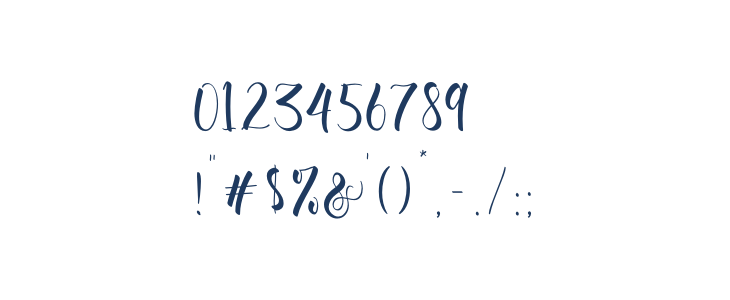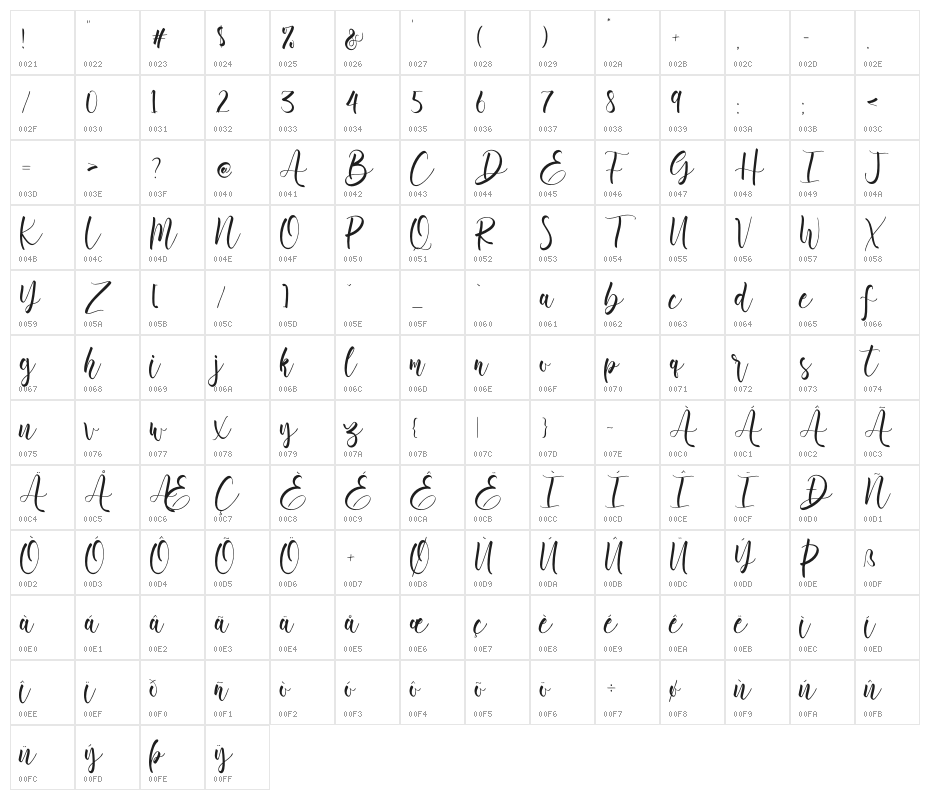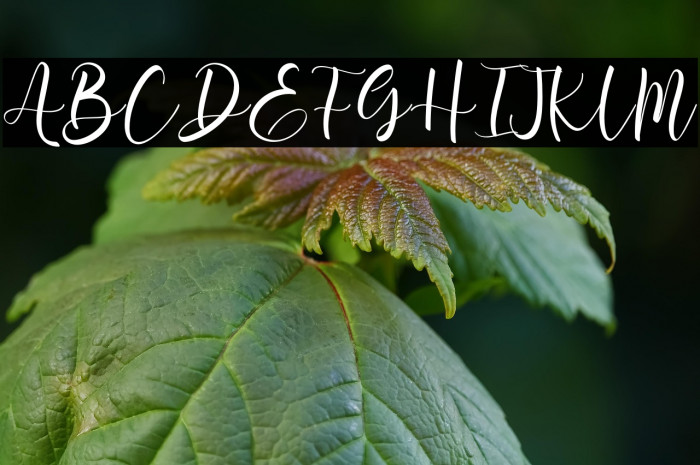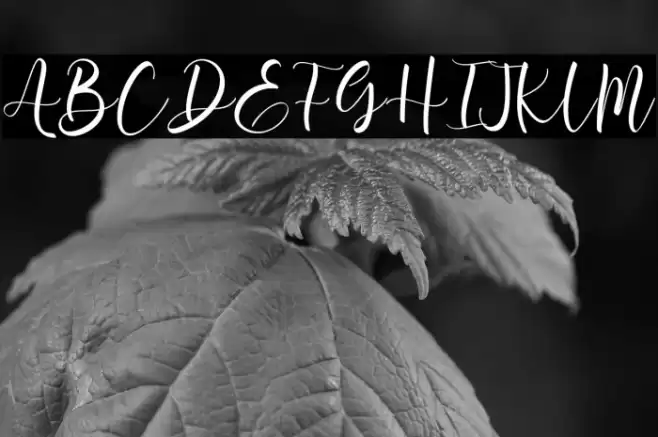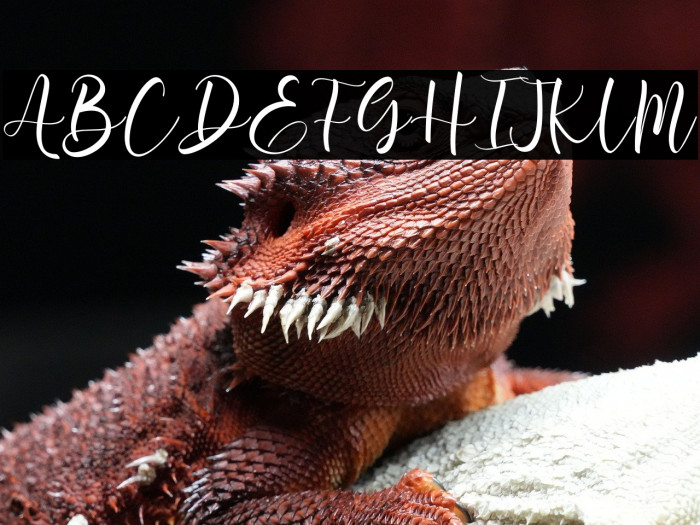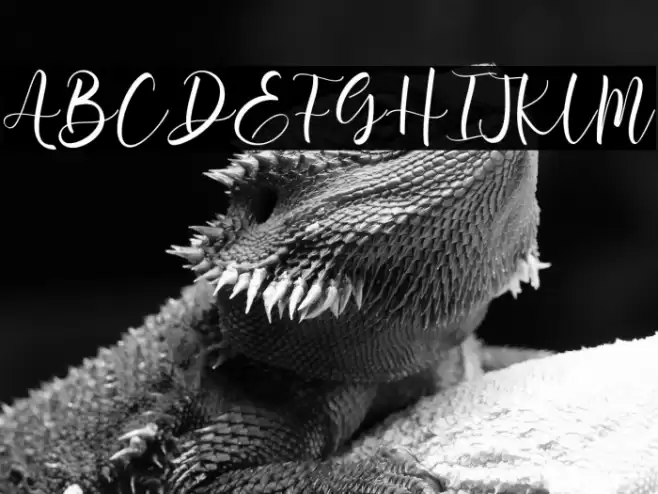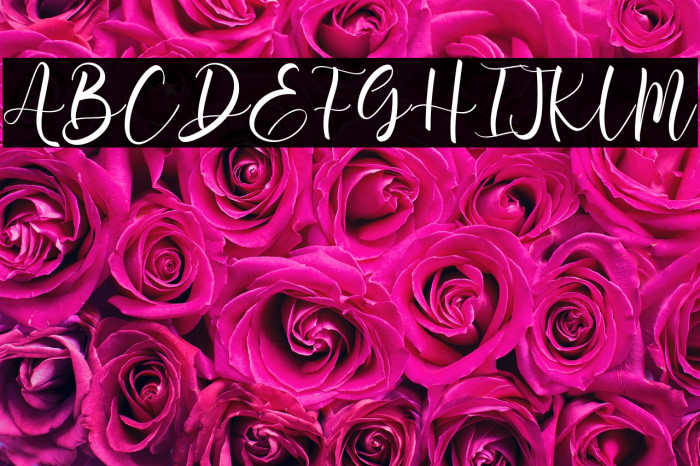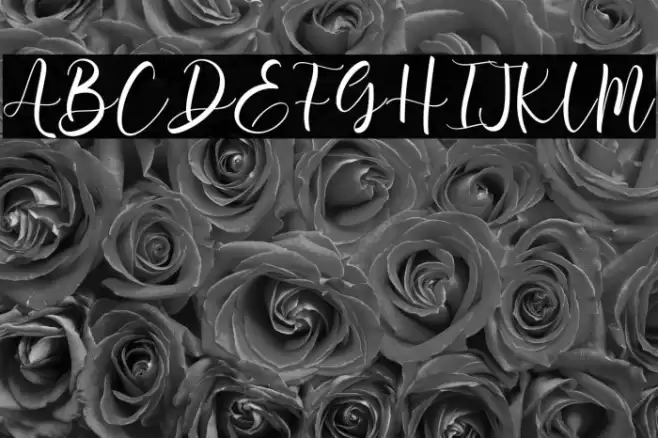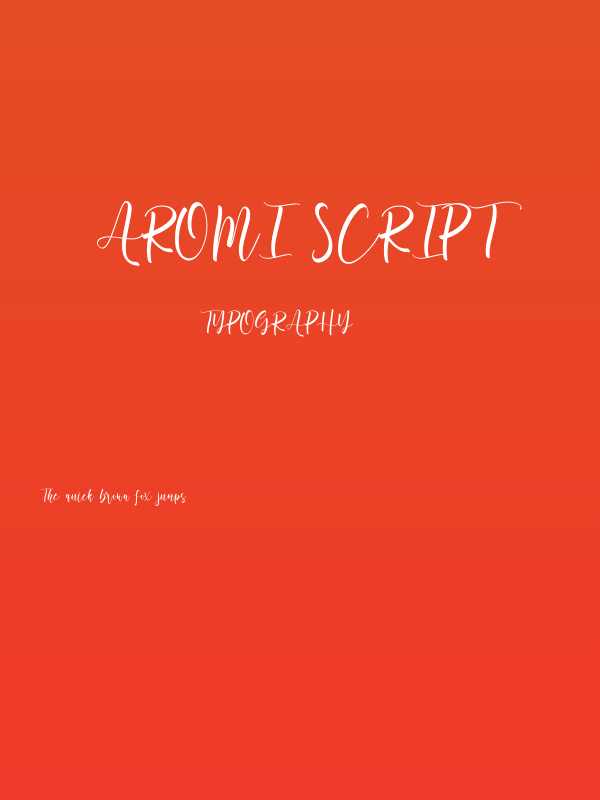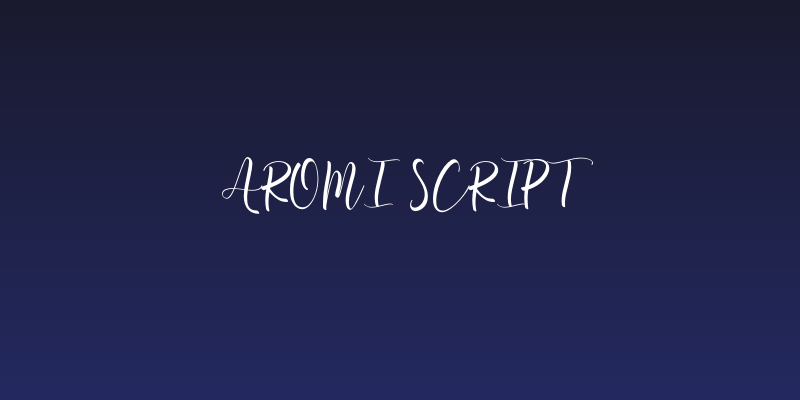
Aromi Script Font
Aromi Script Description
This font features a flowing, cursive style with elegant loops and swashes, giving it a handwritten appearance. The uppercase letters are tall and graceful, while the lowercase letters maintain a consistent flow with varying stroke widths. Numbers and special characters are designed to complement the script style, adding a touch of sophistication. The overall look is both artistic and legible, making it suitable for creative projects that require a personal touch.